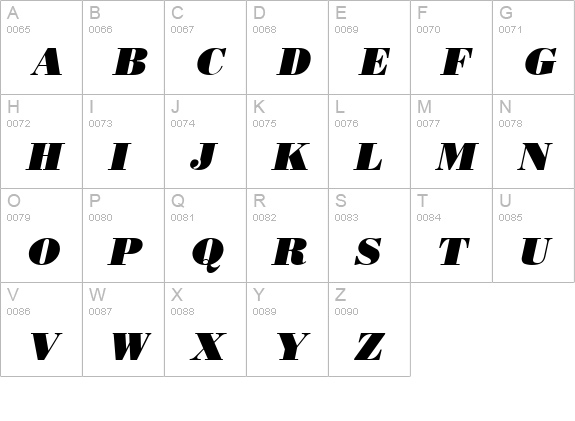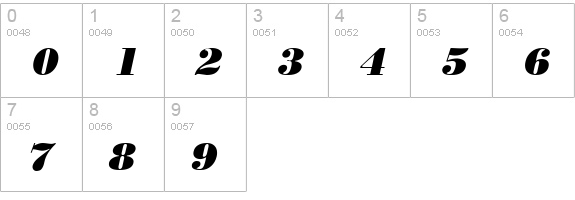
Beau Italic Font Details
Beau Italic is a distinctive, italic variant in the Beau typeface family \xE2\x80\x94 well suited to design and typography projects.
Introducing Beau Italic font, a stunning typeface that exudes elegance and sophistication. With its sleek and stylish design, Beau Italic is perfect for adding a touch of class to your projects. The italicized characters flow beautifully, creating a sense of movement and grace. What's even better is that Beau Italic font is completely free to download at FontsMarket.com. Whether you're working on a branding project, invitations, or any other design, Beau Italic is sure to make a statement. Elevate your typography game with this exquisite font that combines classic charm with a modern twist. Download Beau Italic today and let your creativity soar.